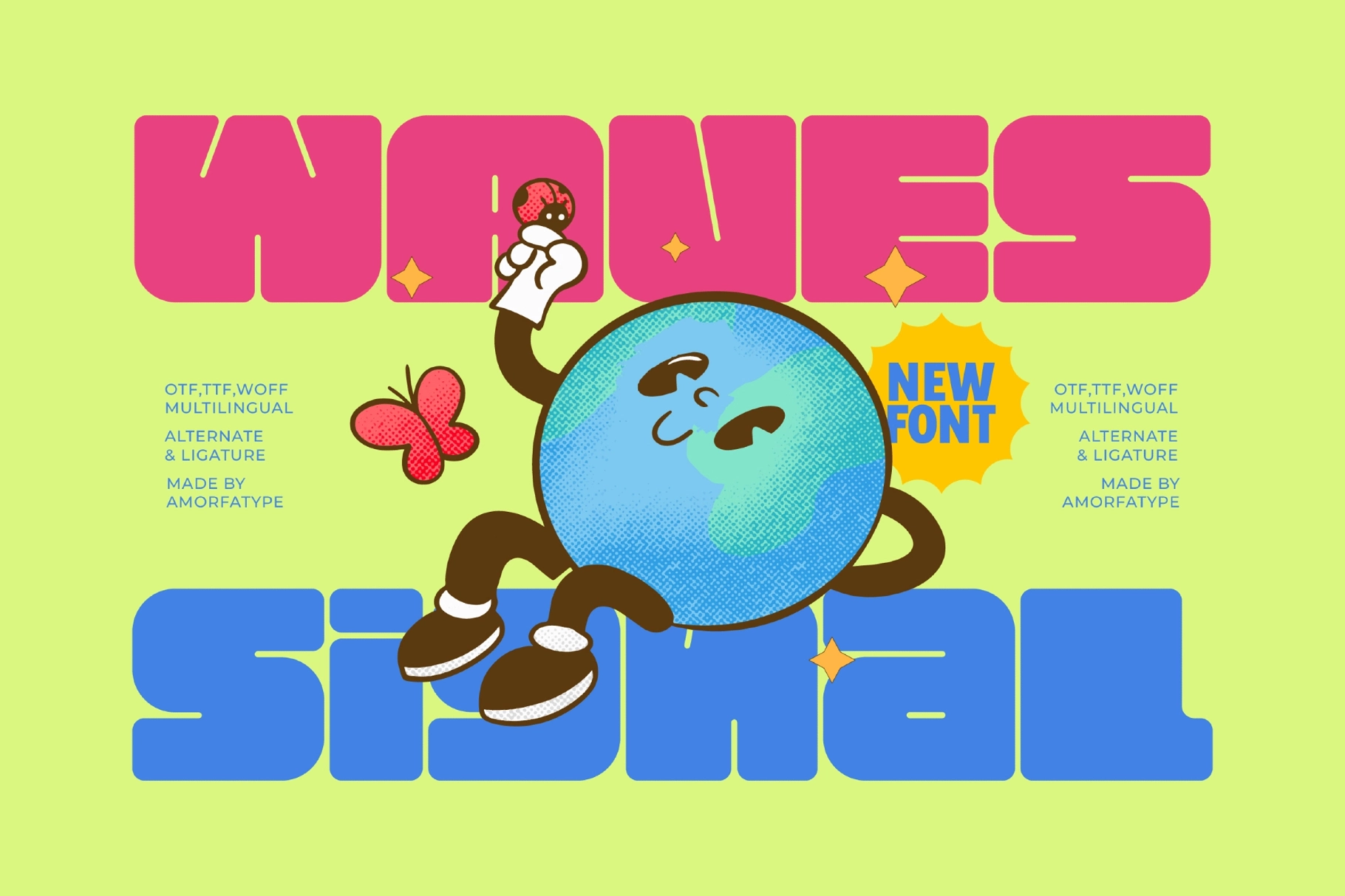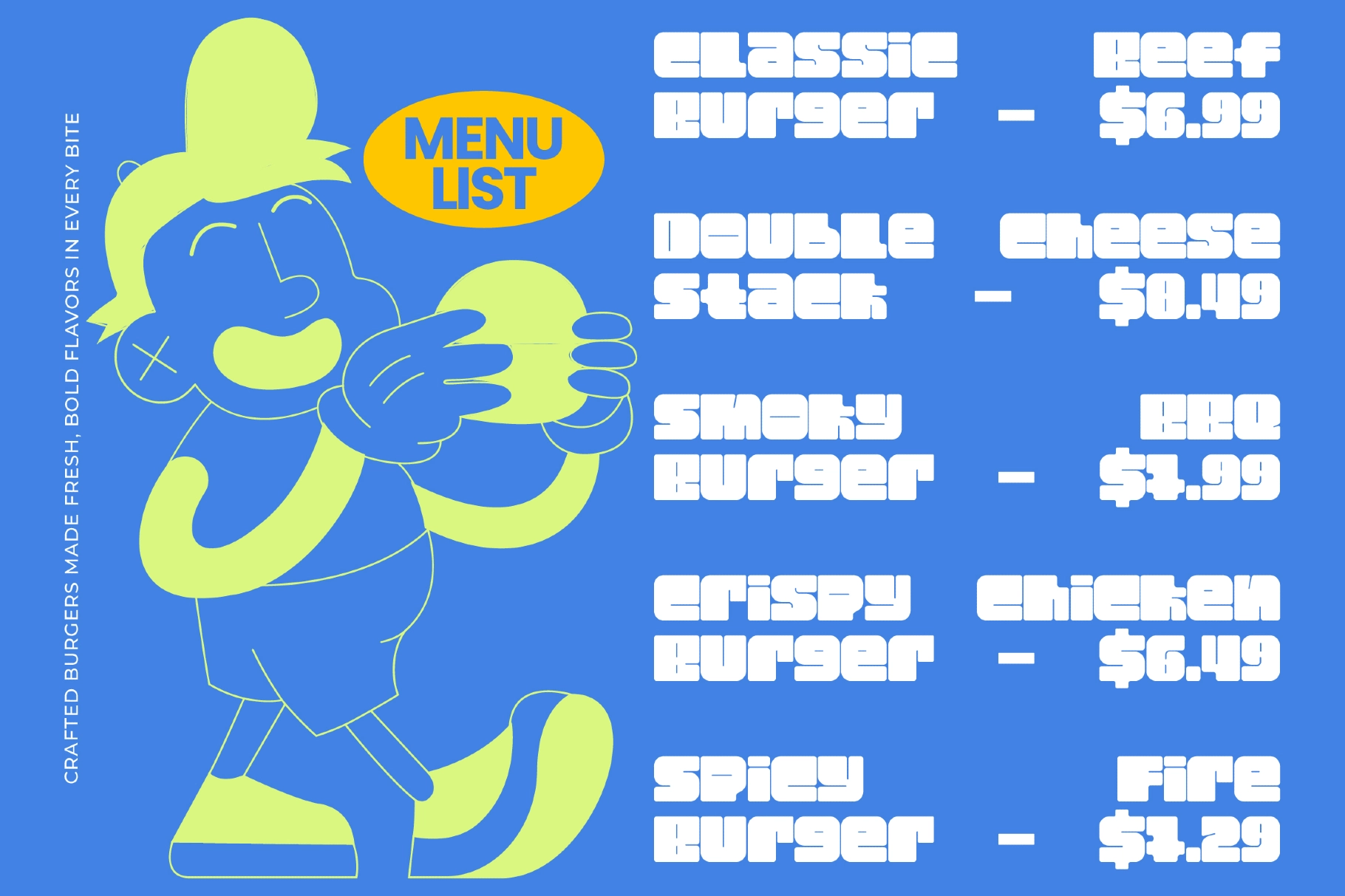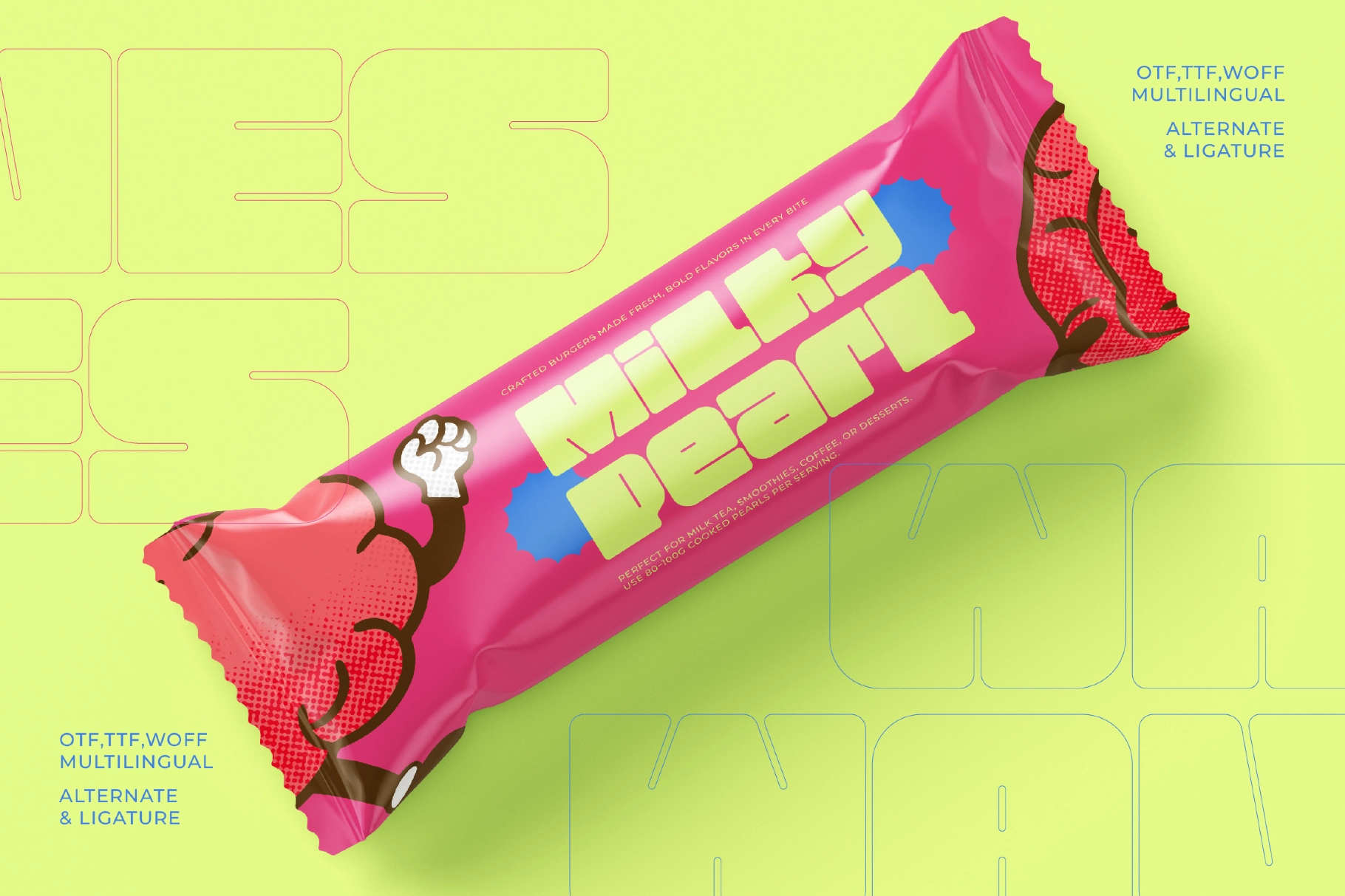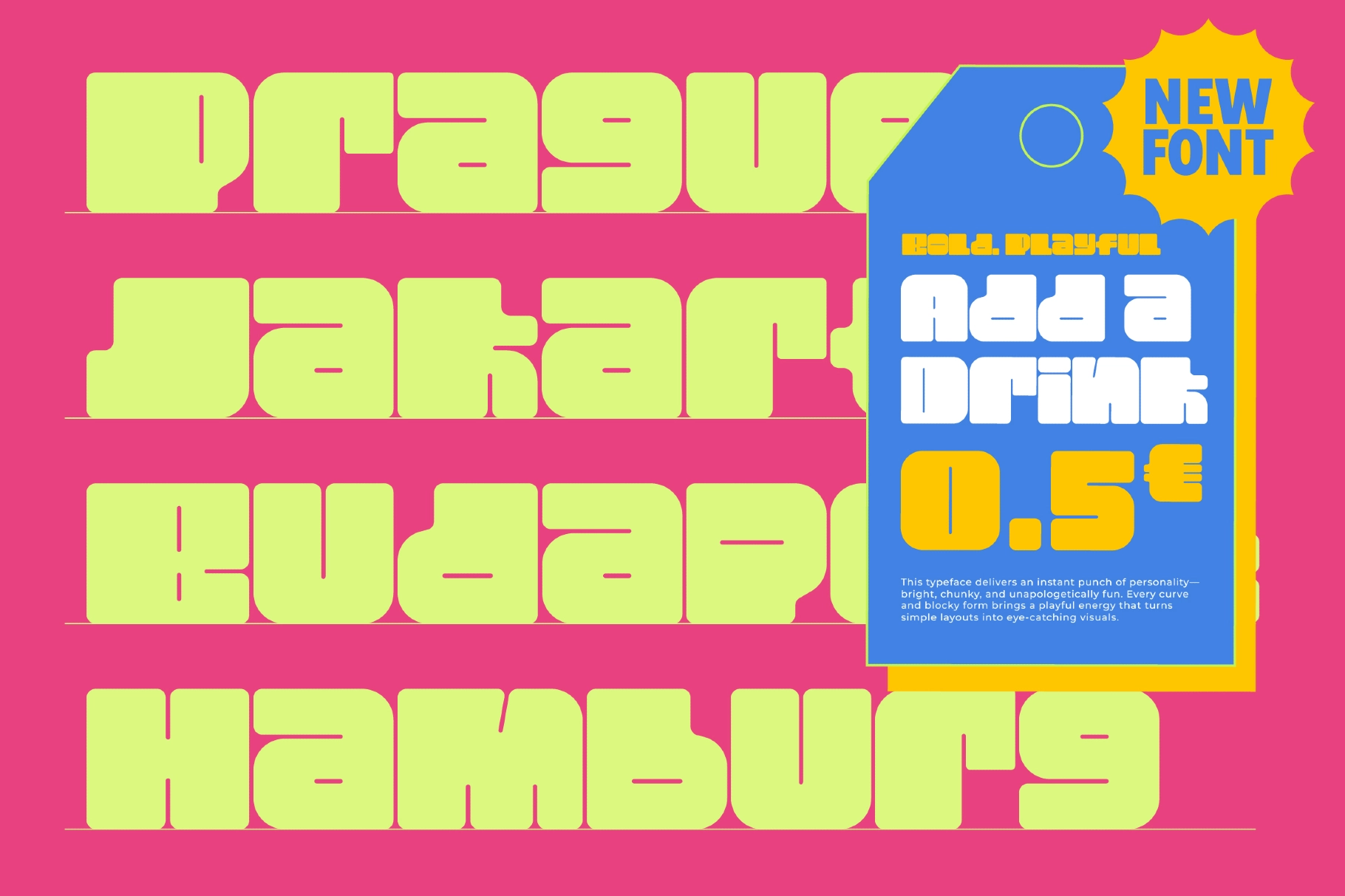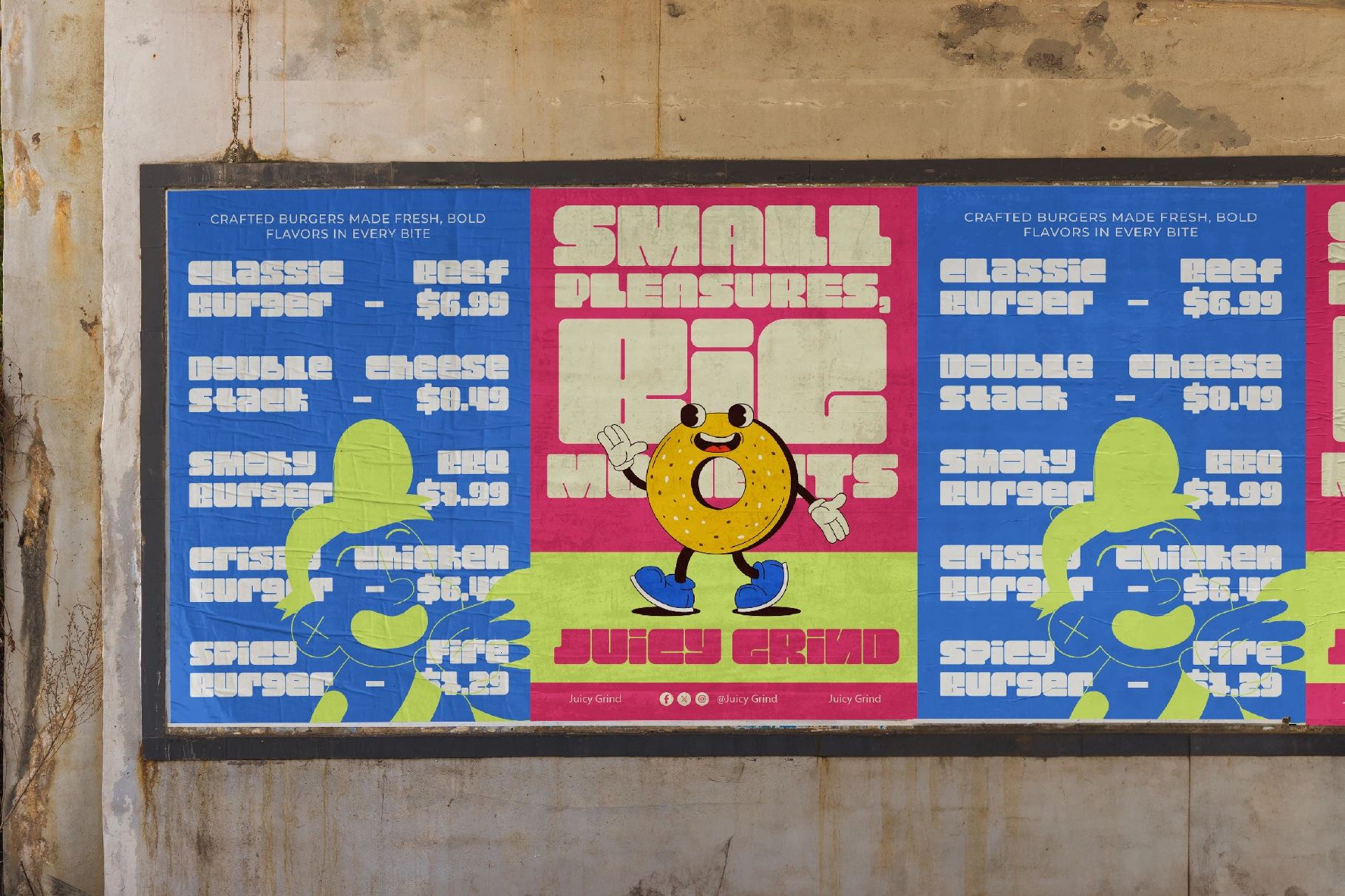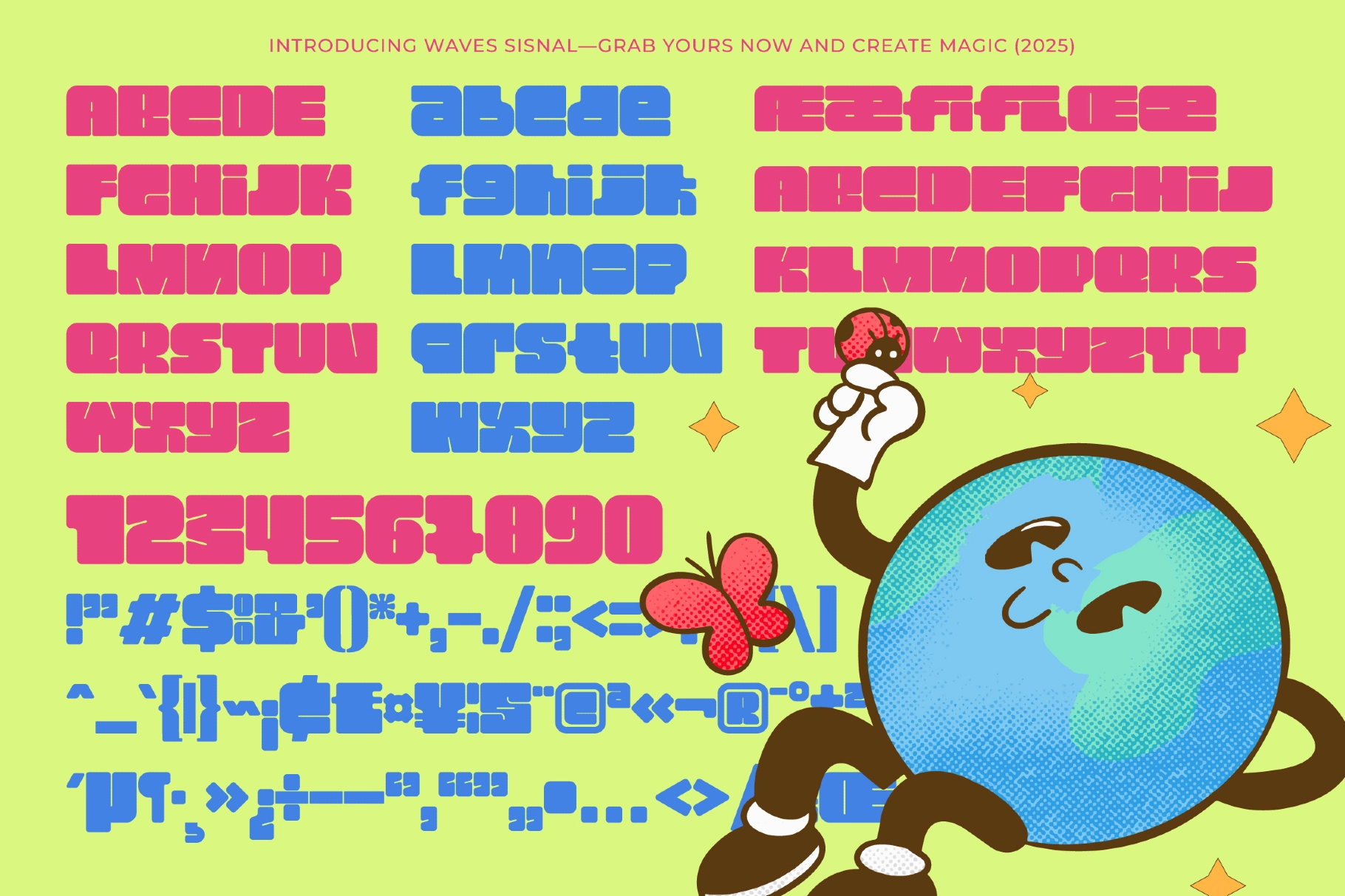
Waves Signal - Bold Playful Typeface
This bold display typeface has solid shapes, confident curves, and sharp detailing for typography that feels strong, lively, and easy to read. Its playful proportions bring punch to large headlines, while the clean construction keeps logos, covers, and packaging crisp across print and digital work.
Waves Signal is ideal for brand identities, poster titles, magazine covers, product packaging, website headers, promotional graphics, logo design, event visuals, social media headlines, merch prints, app banners, editorial spreads, and more. Alternates give designers extra room for expressive lettering while keeping the overall style consistent and memorable.